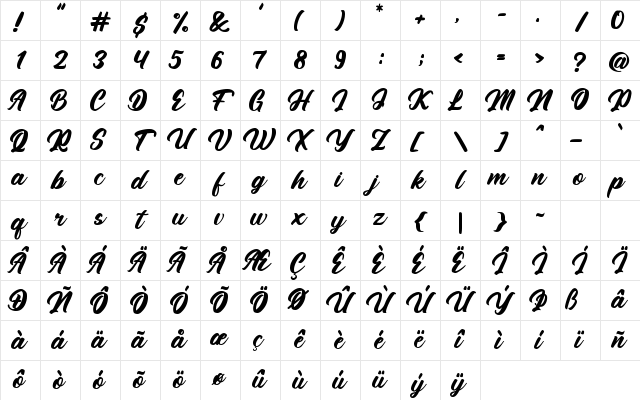
Anthem Pride Regular
Foundry: Ronny Studio
Designer: Ronny Studio
Design Context for Anthem Pride
Anthem Pride is a composed and adaptable typeface that performs quietly and consistently across a wide range of design contexts.